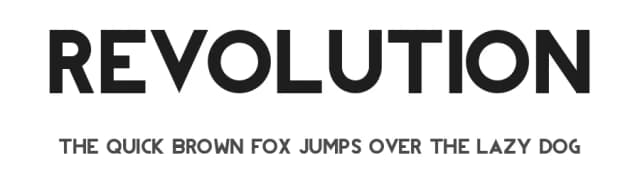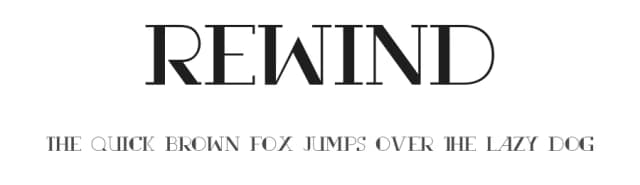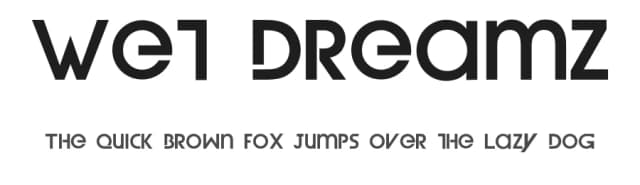
About Devil Breeze Font
DEVIL BREEZE..Was designed based on the variations and similarities of AVANT GARDE Typeface (created in the era of the 60s by Herb Lubalin and Tom Carnese).
Devil Breeze Font is a versatile sans-serif font that works for both headings and body text. Pair it with a contrasting serif or slab serif font to add visual interest and a clear distinction between titles and body copy.
Devil Breeze Font